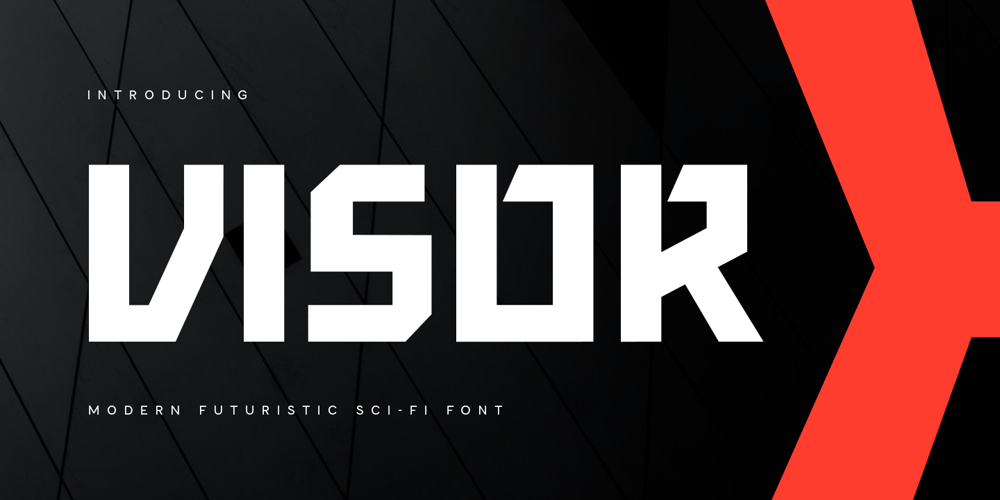
Visor
Visor font
Visor Font Family was designed by Zamroni Hamzah and published by Sensatype Studio. Visor contains 1 styles and family package options. Visor is a Modern Futuristic Sci-fi Font that created special for Sci-fi, Modern, Technology and more stand out typography needs, with extra outline styles that make your design more Futuristic. It’s so perfect to add your style and headline overview for Cryptocurrency, technology, film, and Sci-fi theme. And specially for this font, we crafted modern style and technology feels so enjoy to create any project that will show your main idea out.Visor Modern Futuristic Sci-fi Font ready with: Unique Sci-fi characters prepared to get creative alternatives in Futuristic theme 4 files format already Preview as a inspirations that you can do with Visor font Ready with Technology characters Wish you enjoy our font.